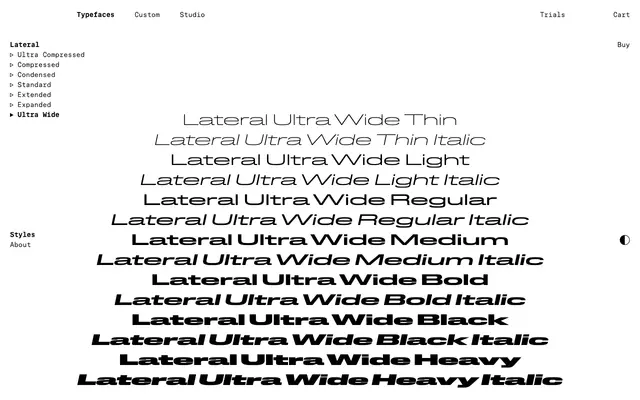
Lateral Ultra Wide
The widest cut of Lateral: an ultra-wide neo-grotesque with long horizontal parts, in seven weights with italics, sized for display.
Lateral Ultra Wide is the widest width in the seven-width Lateral system. The flat segments at curve extremes stretch into long horizontal bars, giving the cut its slow, brutalist stance; the foundry note that this width takes up more than five times the space of Lateral Ultra Compressed. Seven weights from Thin to Black with matching italics suit headlines, mastheads and statement display work, with continuous interpolation to all other widths through the Lateral variable font.
The widest width in the seven-width Lateral system; flat curve segments stretch into long horizontal parts.